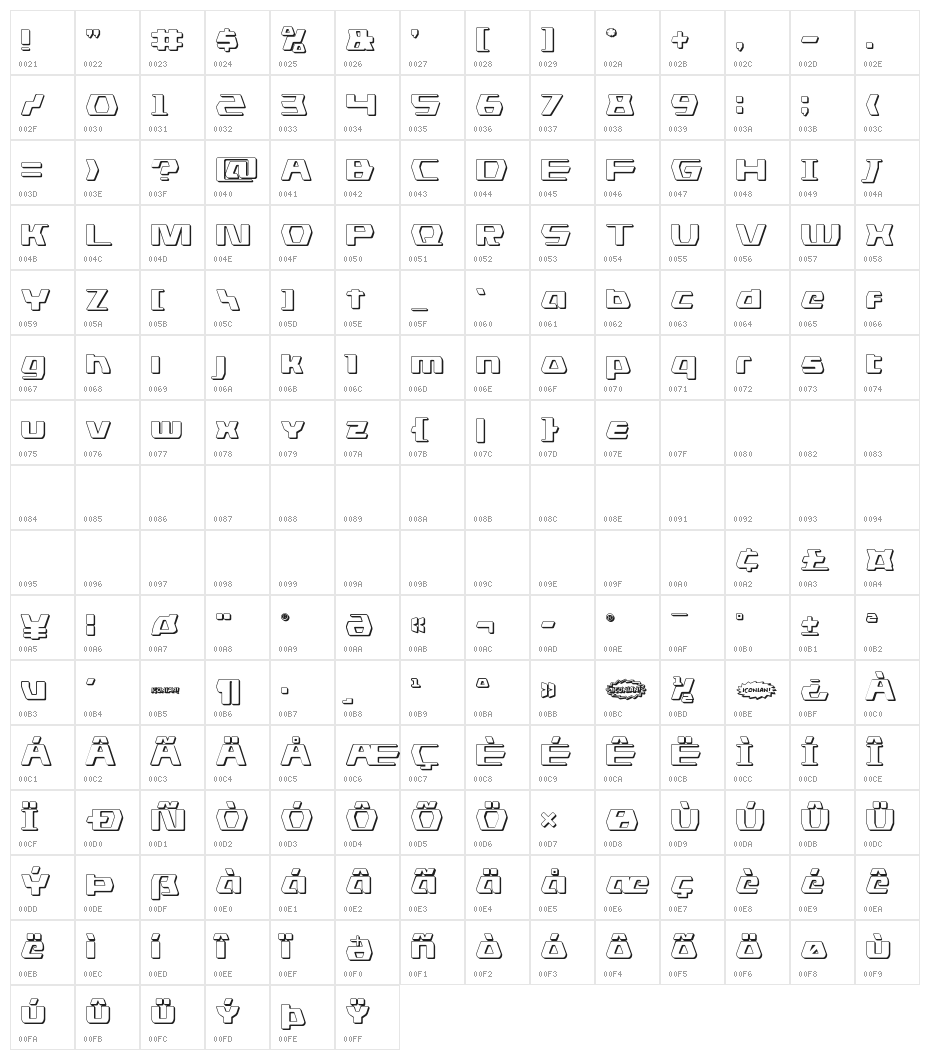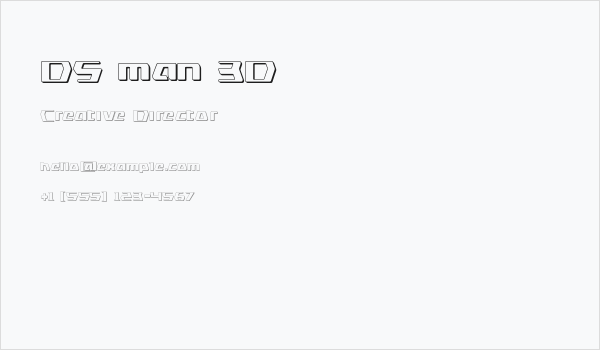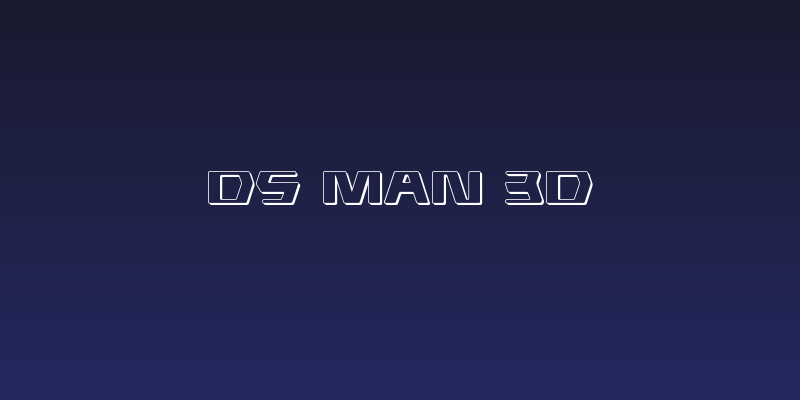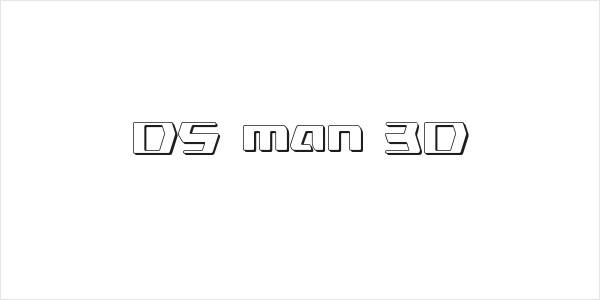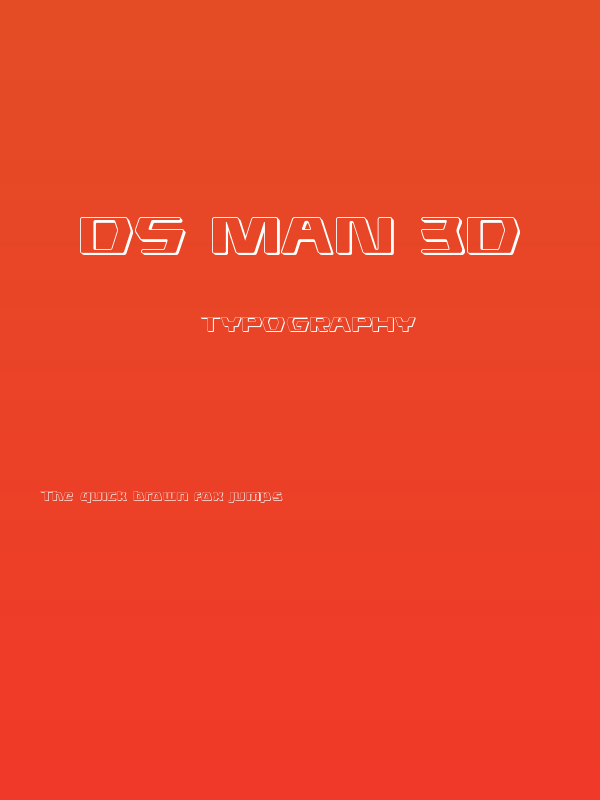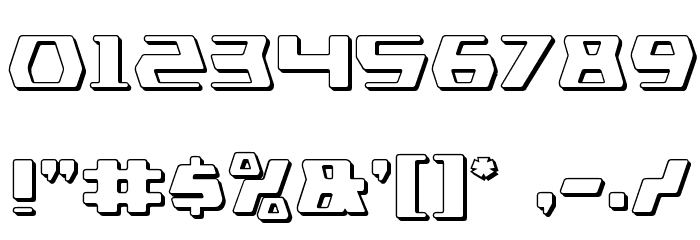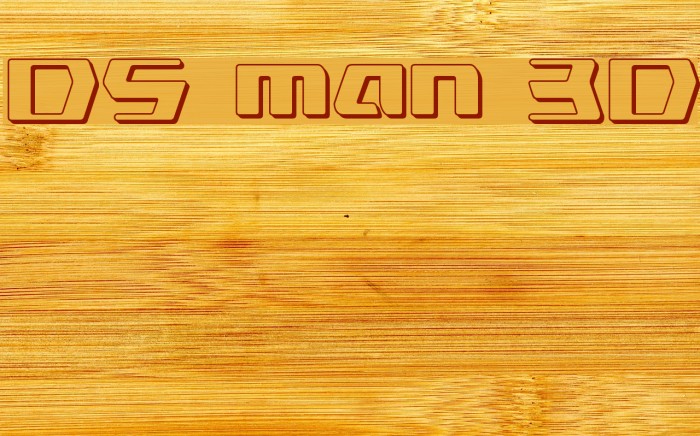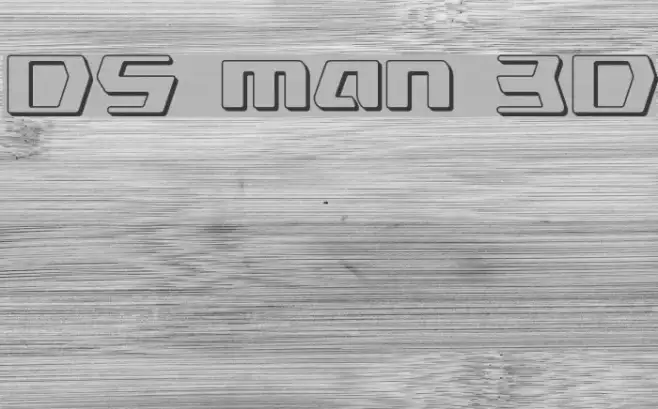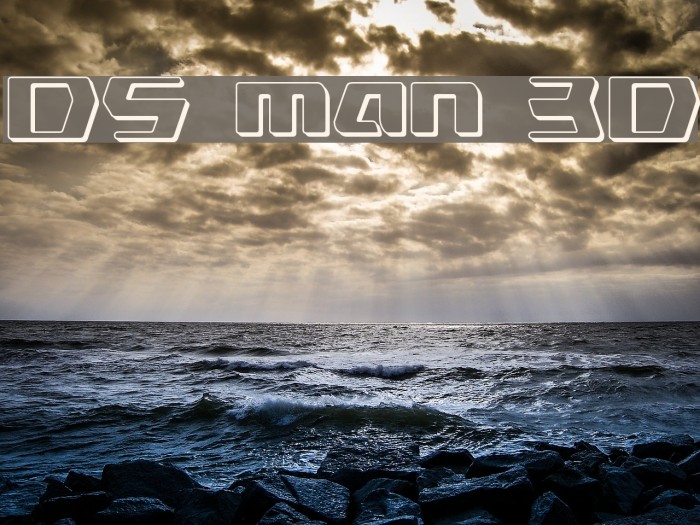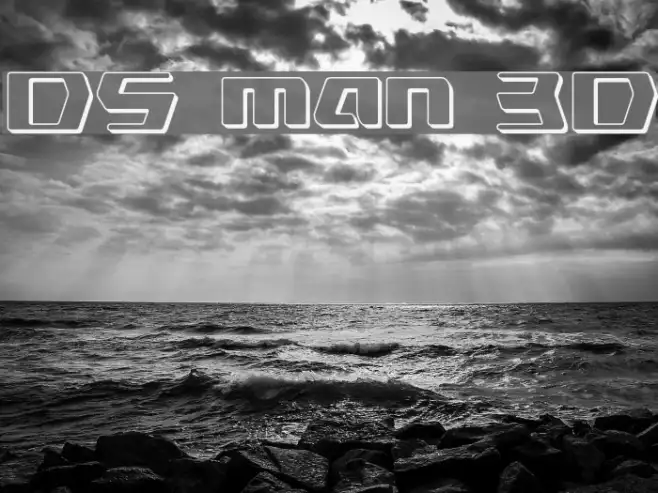
DS man 3D Font
DS man 3D Description
This font features a bold, geometric design with a three-dimensional effect that gives it a futuristic and dynamic appearance. The characters are outlined with a consistent thickness, creating a sense of depth and structure. The uppercase and lowercase letters maintain a uniform style, with angular and straight lines that contribute to its modern aesthetic. The numbers and special characters follow the same design principles, ensuring a cohesive look across all glyphs. This font's unique style makes it stand out, ideal for projects that require a strong visual impact.